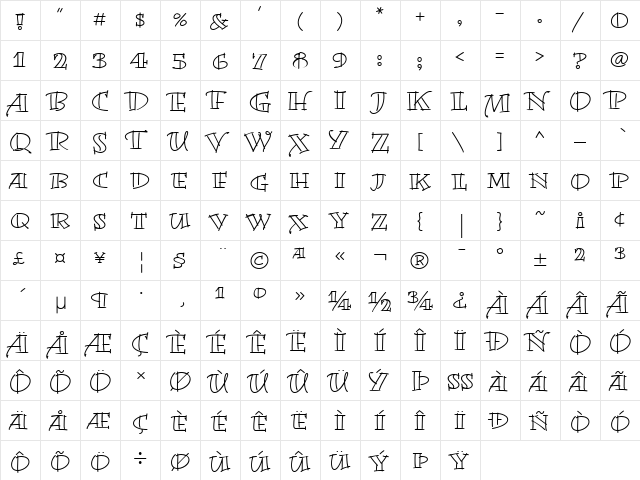
Bermuda LP Regular
Design Context for Bermuda LP Typeface
Bermuda LP is a composed and adaptable typeface that performs quietly and consistently across a wide range of design contexts.